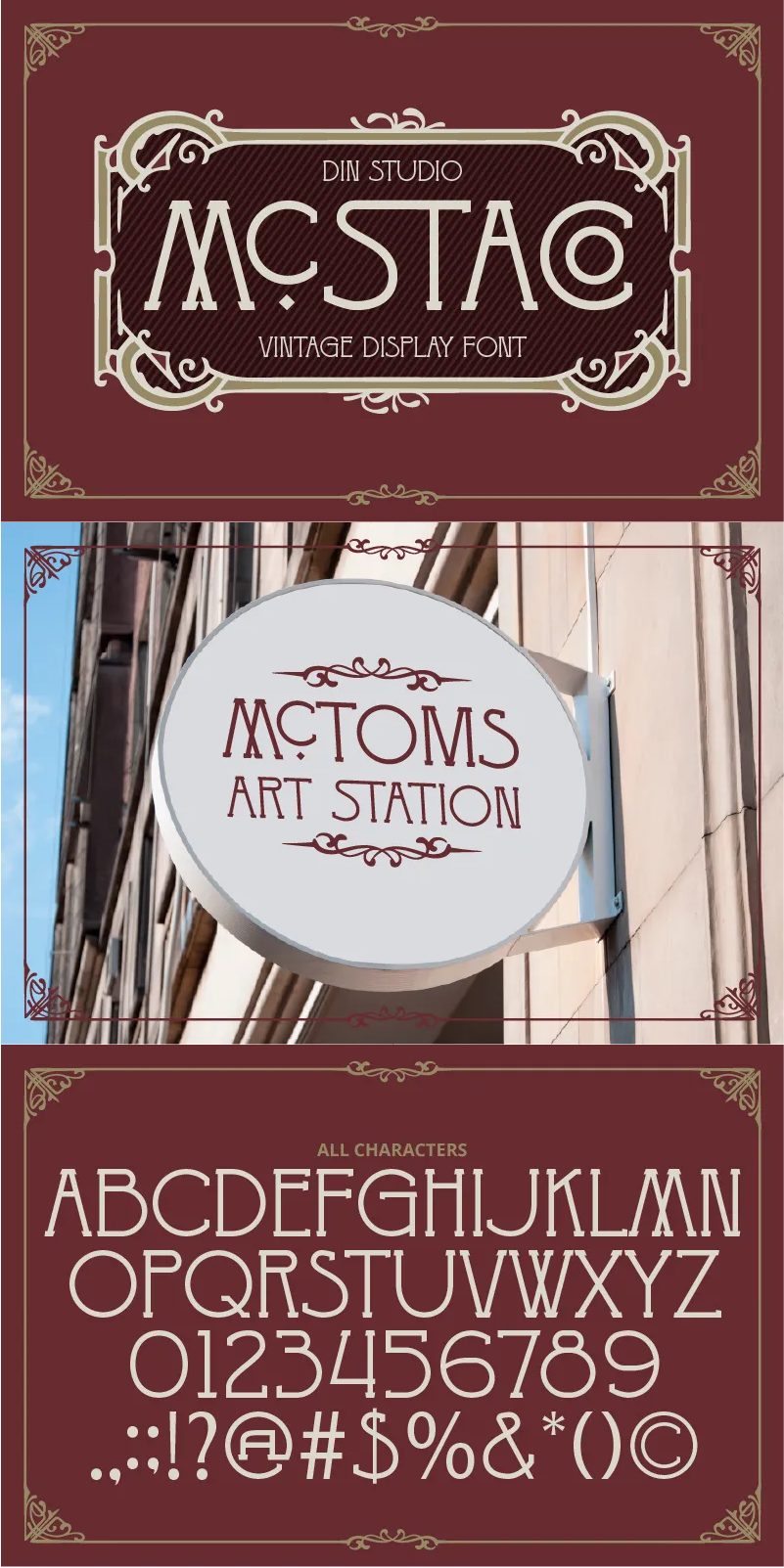
Mcstaco Font
About Mcstaco
Mcstaco, a sleek and elegant display font with a vintage flair. Crafted in uppercases, Mcstaco shows a refined, thin weight that brings a touch of sophistication to any project. The consistent and clean letterforms, combined with softly rounded shapes, create a smooth and approachable feel. With its timeless vintage style and delicate design, Mcstaco adds a subtle yet striking charm to your creations. This font gives ornament sets as extra.